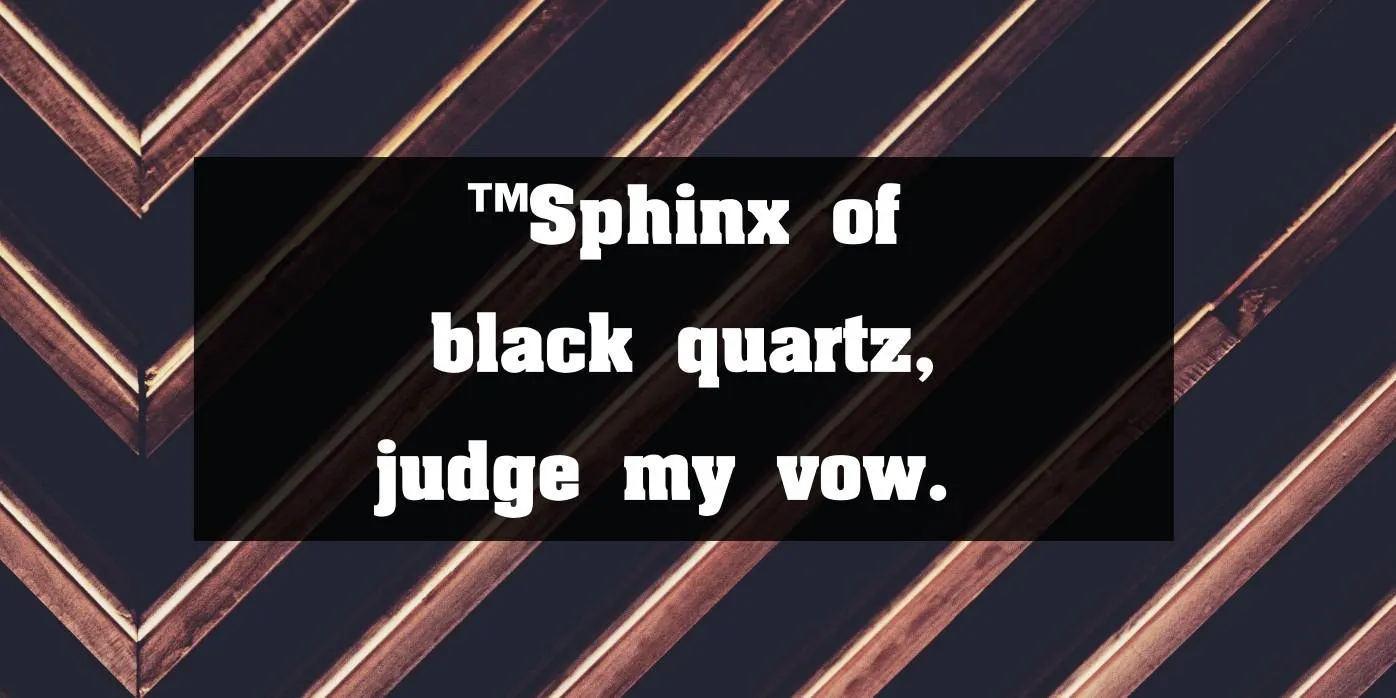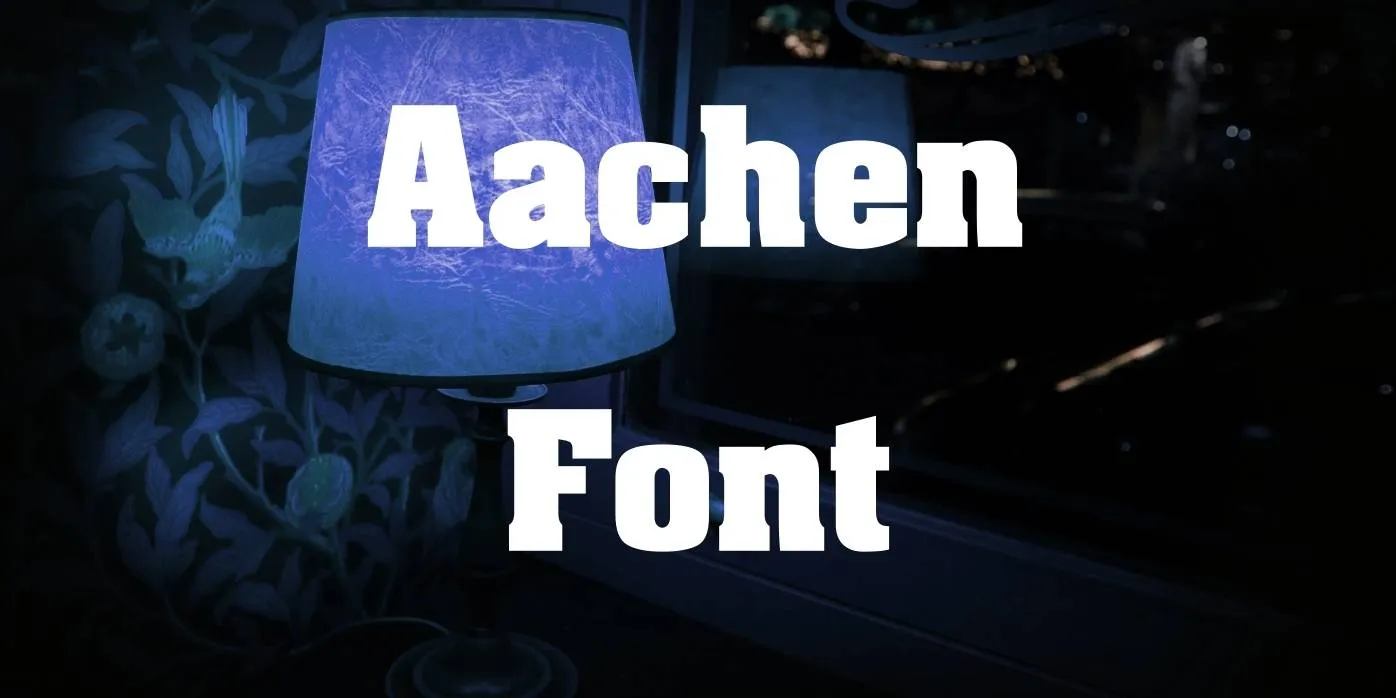
Aachen Font
Aachen Font was developed by two famous designers Alan Meeks, and Colin Brignall. This font family belongs to the Serif typeface. It was first released in 1990 by Monotype Imaging. This typeface is a commercial typeface, but a trial version is available for download on the designer’s website.
The font has a very traditional look and feels, with a strong emphasis on readability. It is a great choice for any kind of text-heavy document, particularly those that need to be easy to read such as reports. This cozy typeface also works well for headings and titles. This font is very similar to the Arvo Serif Font.
One thing to note about this typeface is that it comes in a variety of weights and styles. This makes it a good choice for both body text and displays text, as you can choose the weight and style that best suits your needs.